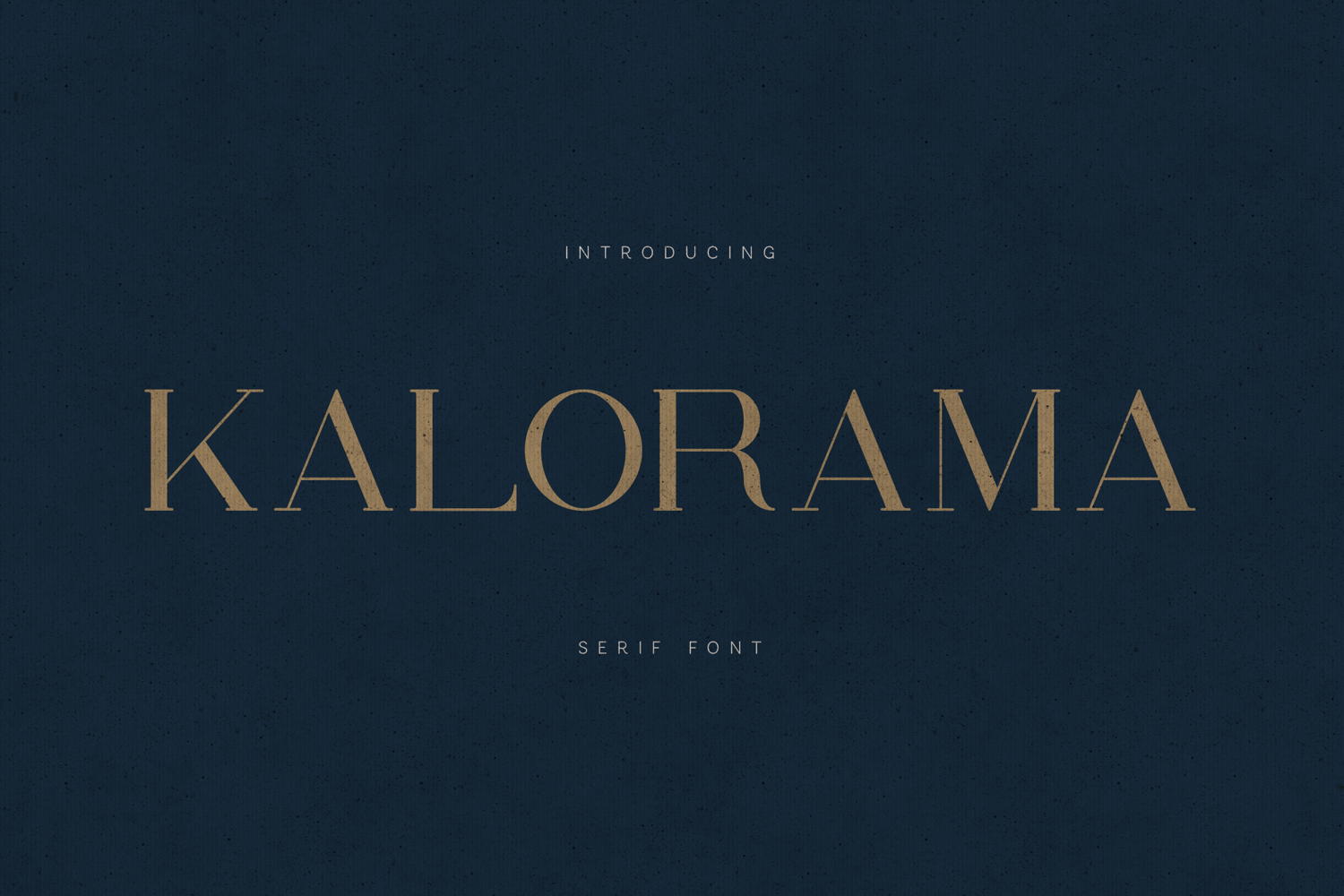
Kalorama Elegant Serif Typeface
KALORAMA is a refined high-contrast serif typeface designed for luxury branding, editorial compositions, and timeless visual identities.
It blends classical serif proportions with subtle modern detailing — creating a typeface that feels sophisticated, confident, and quietly powerful.
This is the kind of font that belongs on:
• Perfume bottles
• Fashion campaigns
• Luxury packaging
• Jewelry branding
• Boutique hotel identities
• Premium editorial layouts
Design CharacterKALORAMA balances tradition and modern refinement.
Its elegant vertical stress, sculpted serifs, and carefully controlled contrast give it a distinguished presence without feeling old-fashioned.
It feels:
• European
• Couture-inspired
• Editorial
• Romantic
• Sophisticated
• Calm but authoritative
The rhythm of the letters allows it to work beautifully in large headlines while maintaining clarity in refined subheadings.
Perfectly spaced for logos, titles, and premium print compositions.
Perfect ForLuxury logos
Beauty & skincare brands
Fashion magazines
High-end packaging
Wedding branding
Restaurant identities
Architecture studios
Branding
Visual Identity DirectionThink:
Deep navy backgrounds
Gold foil stamping
Embossed letterpress
Velvet packaging
Museum catalog typography
Minimal European layouts
KALORAMA doesn’t compete for attention.
It commands it.